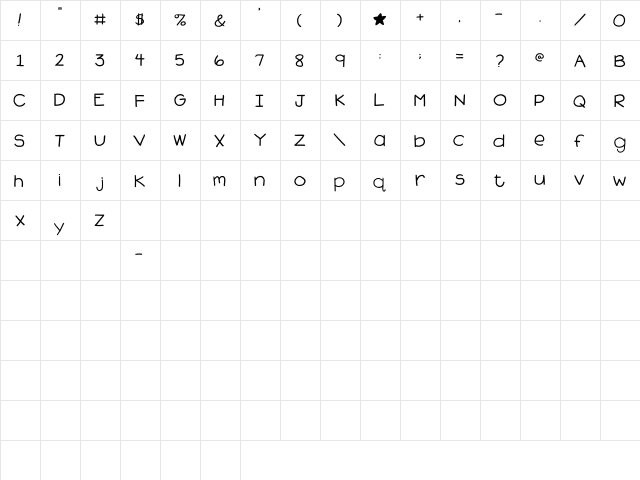
2Peas Sunshine 2Peas Sunshine
2Peas Sunshine offers clean, dependable letterforms without strong stylistic allegiance, making it a practical choice for designers who need flexibility.